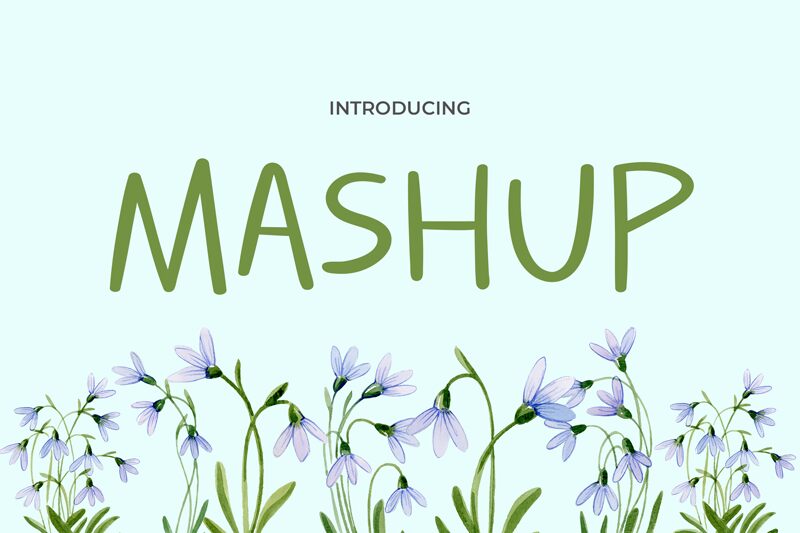
MASHUP
Mashup font, designed by Pinisiart, captures a casual and contemporary feel with its rounded characters and handwritten appearance. This approachable font offers an informal tone that is perfect for adding a personal touch to your projects. Enjoy Mashup’s style across various applications with this free handwritten font.
Utilize Mashup for branding, product packaging, advertising, merchandise designs, website designs, blogs or vlogs, stationery printouts, or sports flyers. Easily adaptable for use on invitations and greeting cards as well as on labels and signage designs.